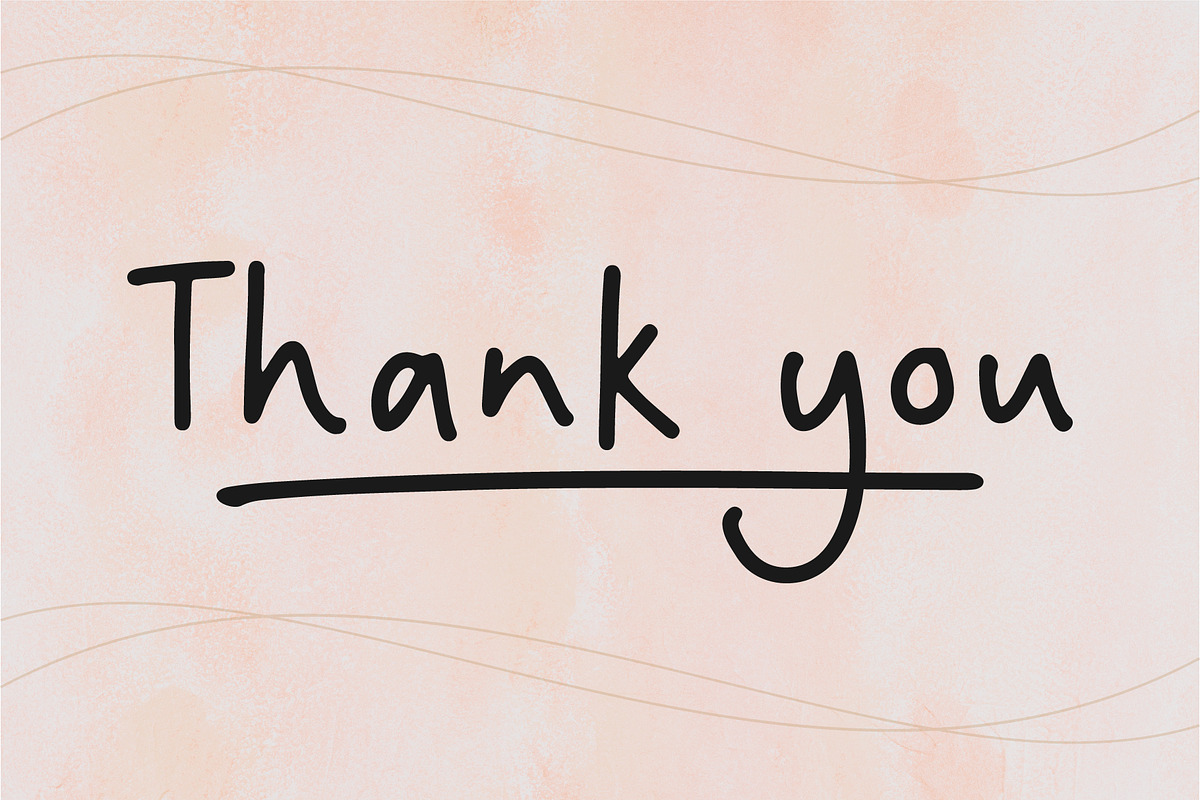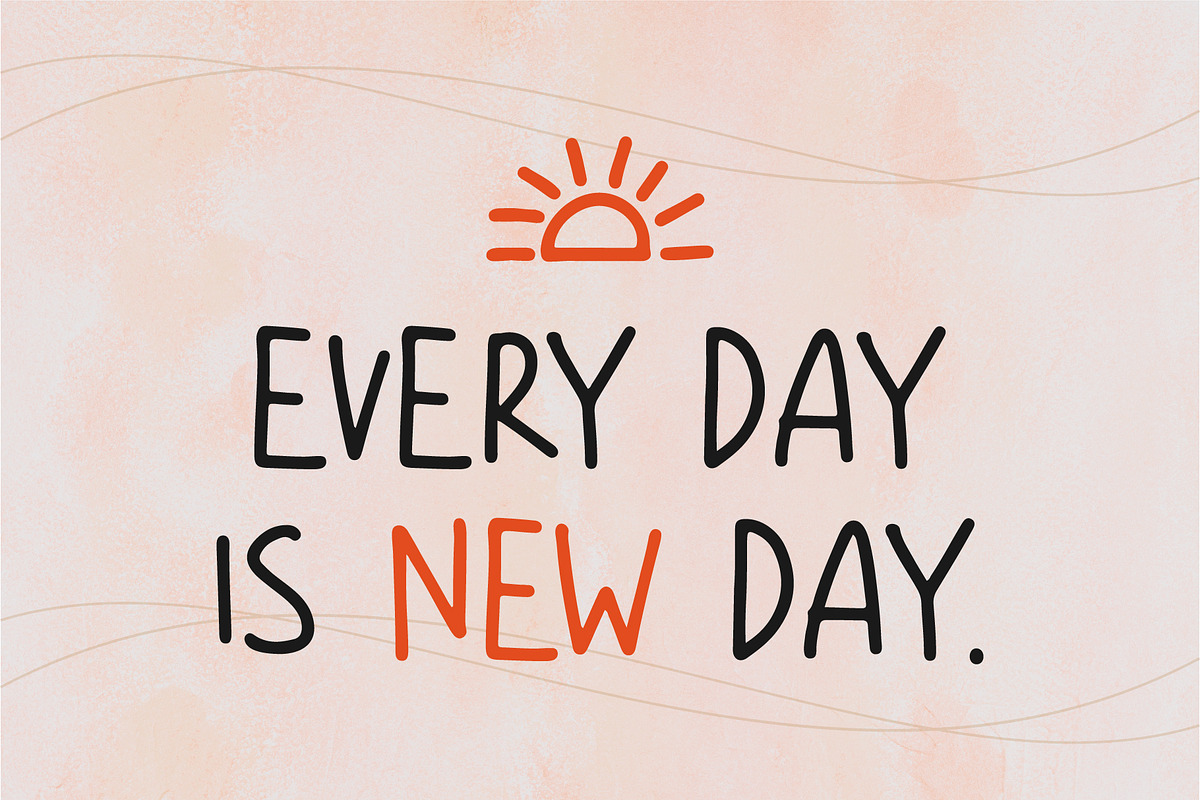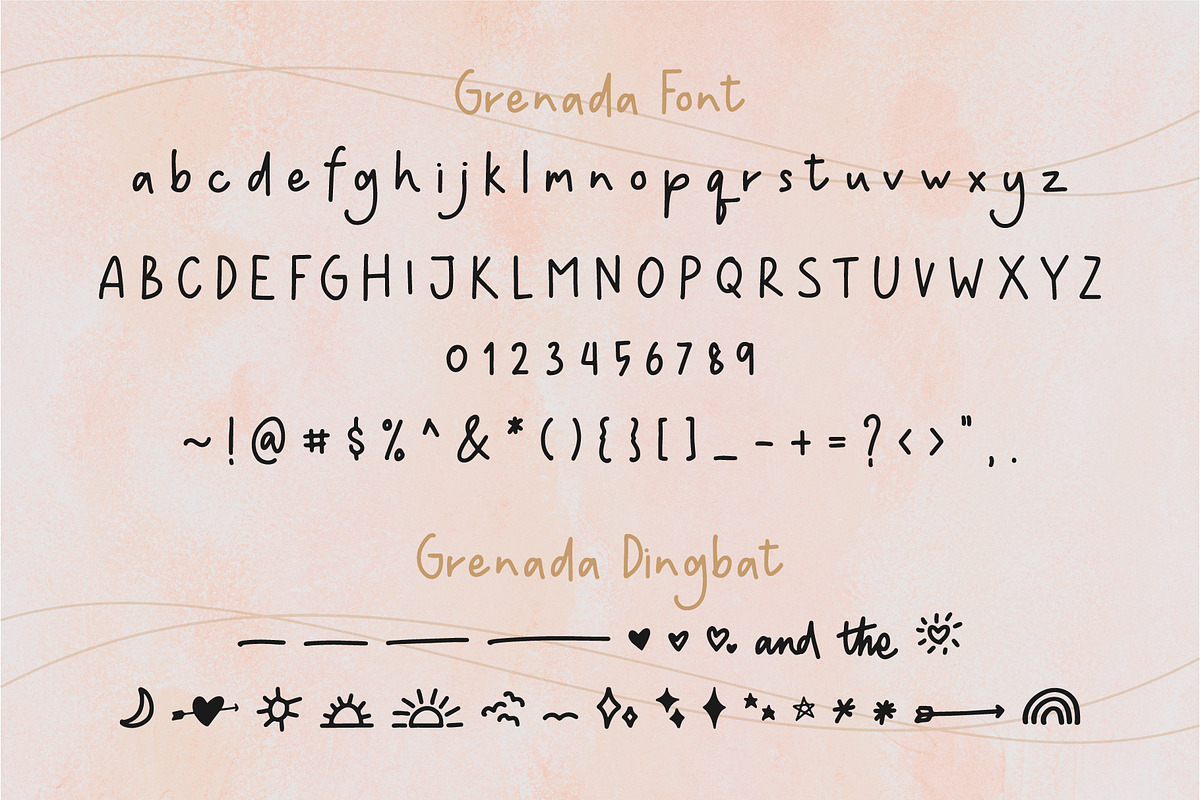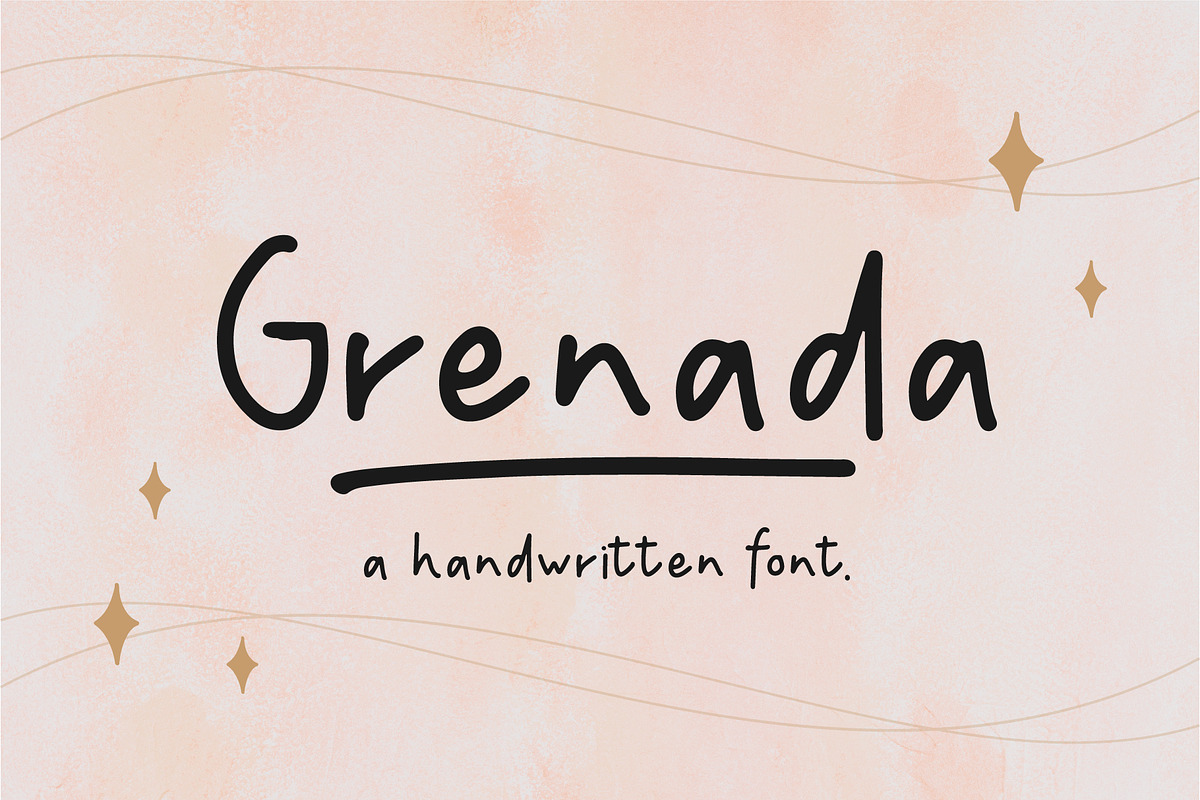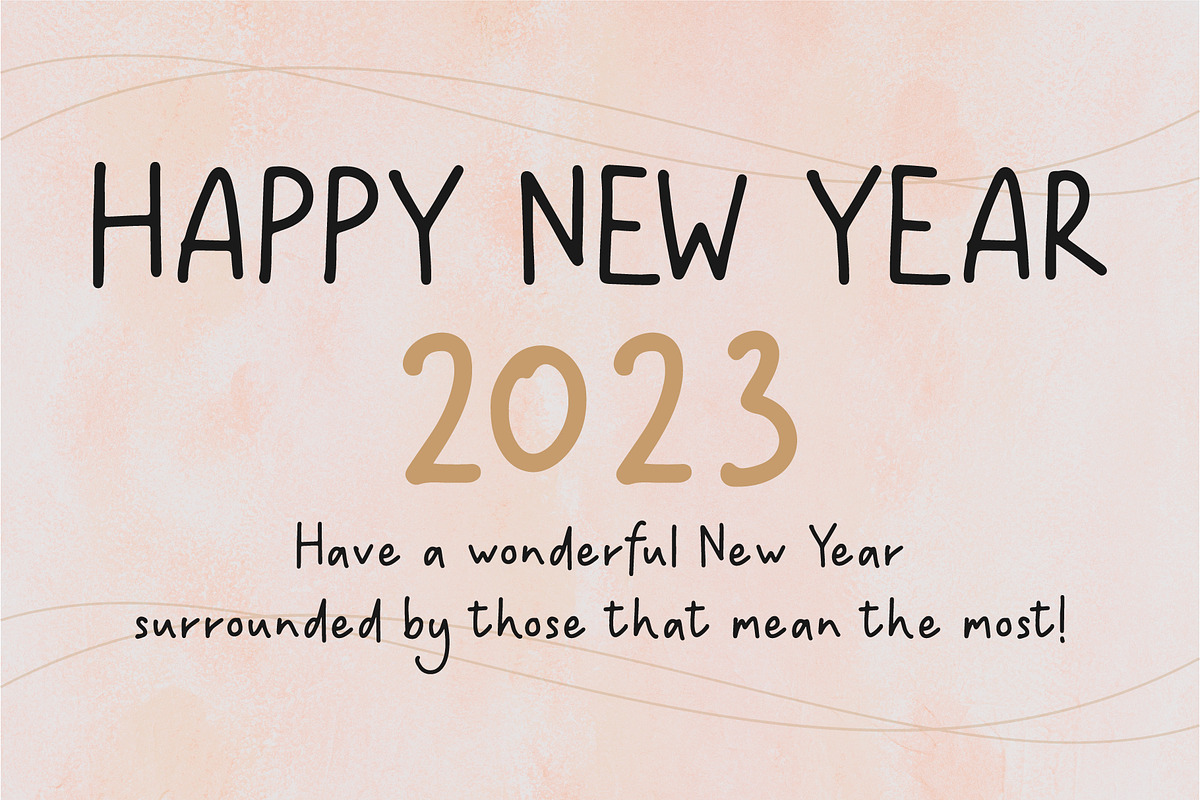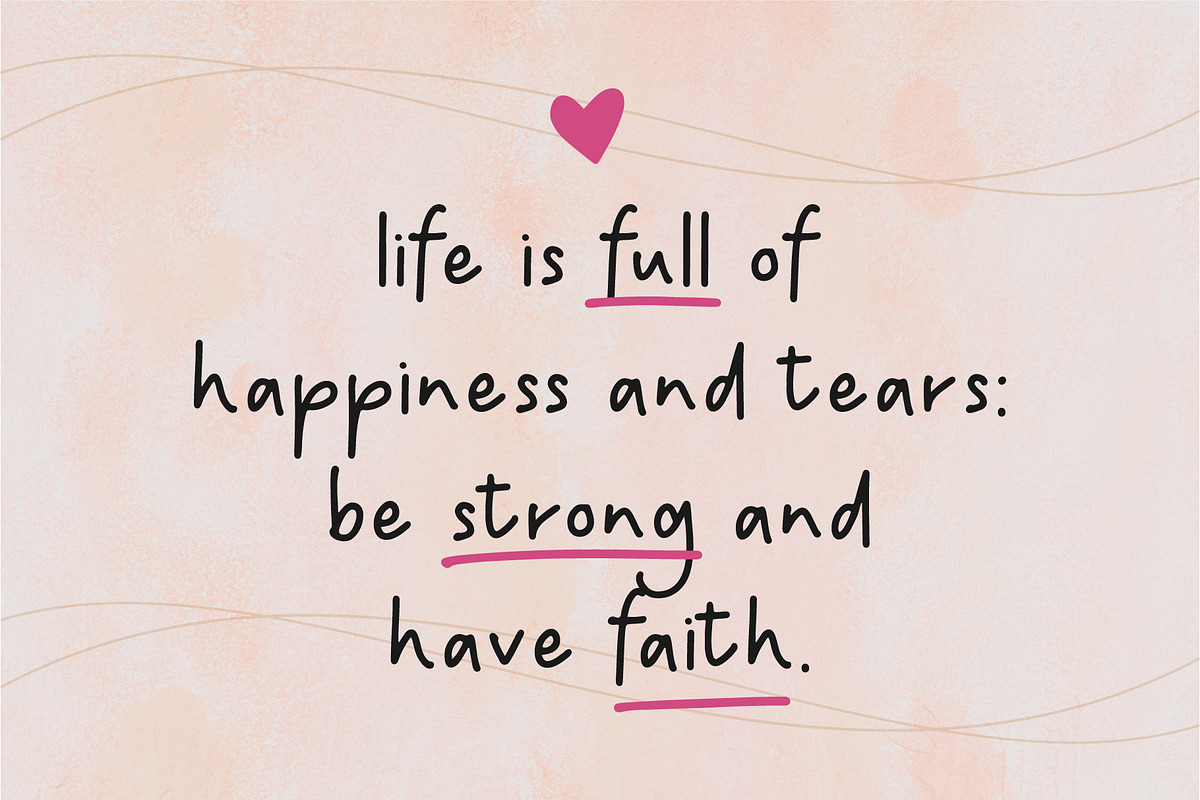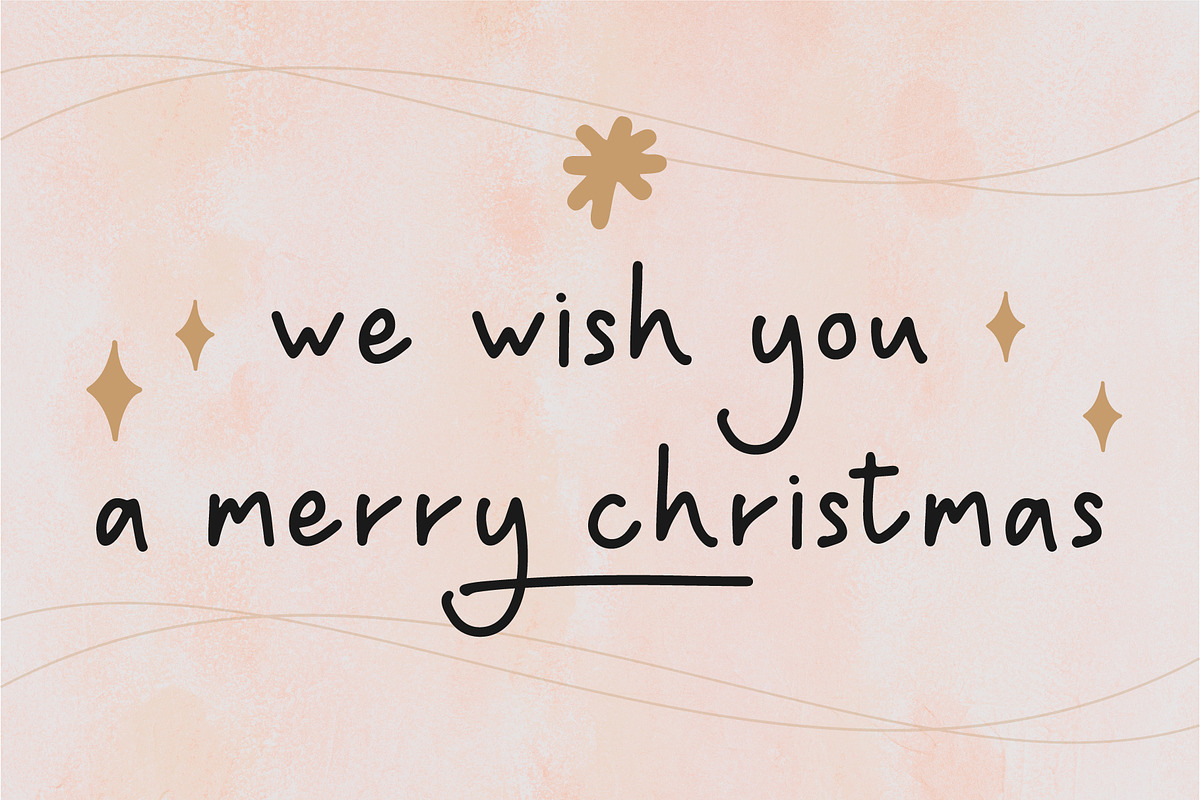
Grenada
Grenada is a sweet and simple duo font (script and dingbats), ideal for giving your projects a branded but friendly feel. The two included styles can be combined together perfectly but are also beautiful on their own.